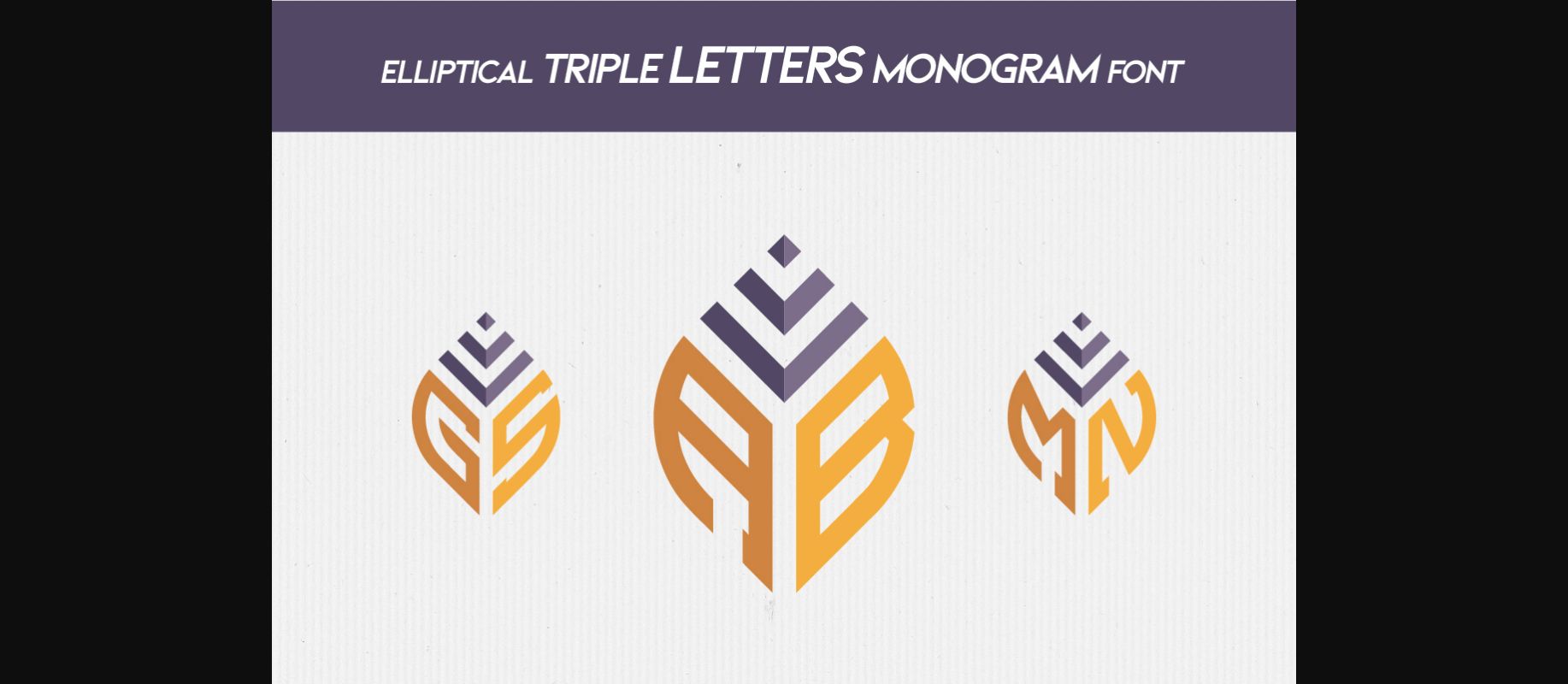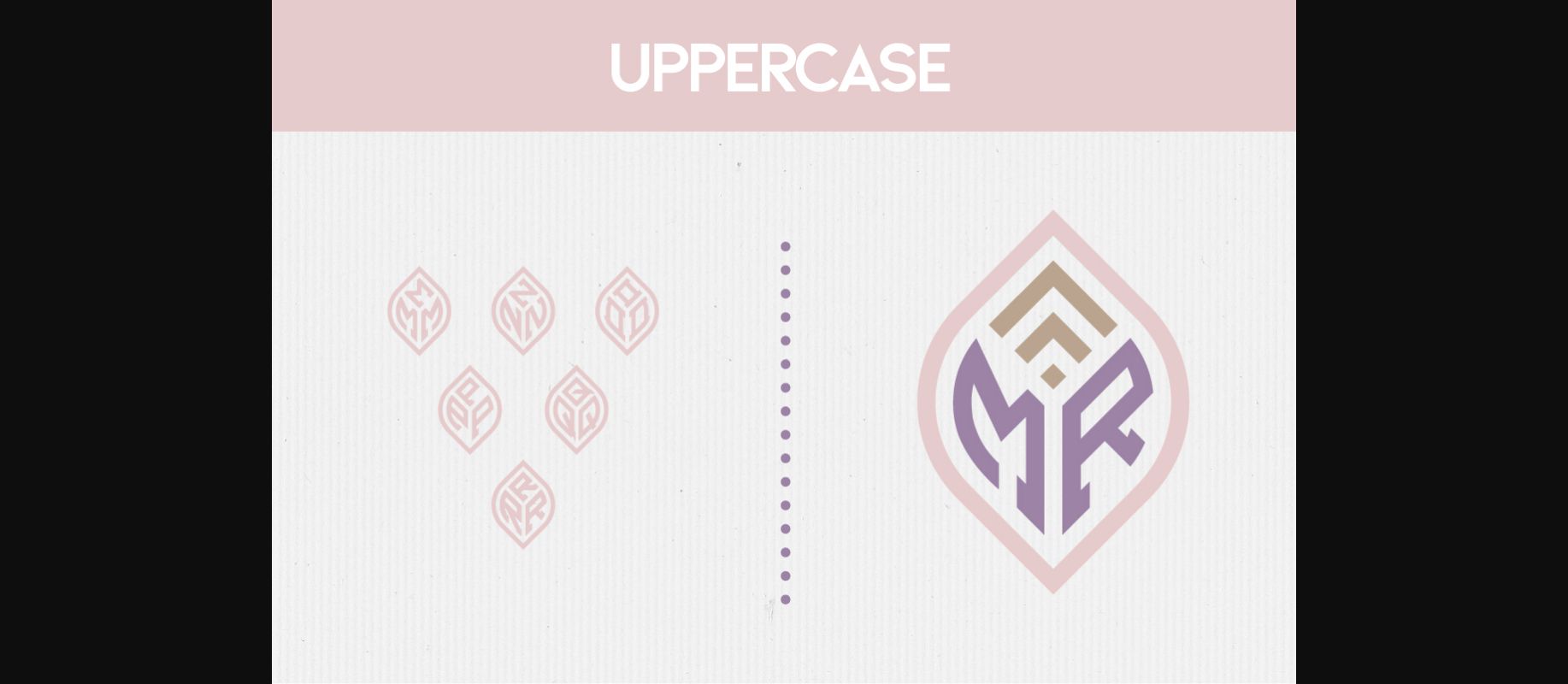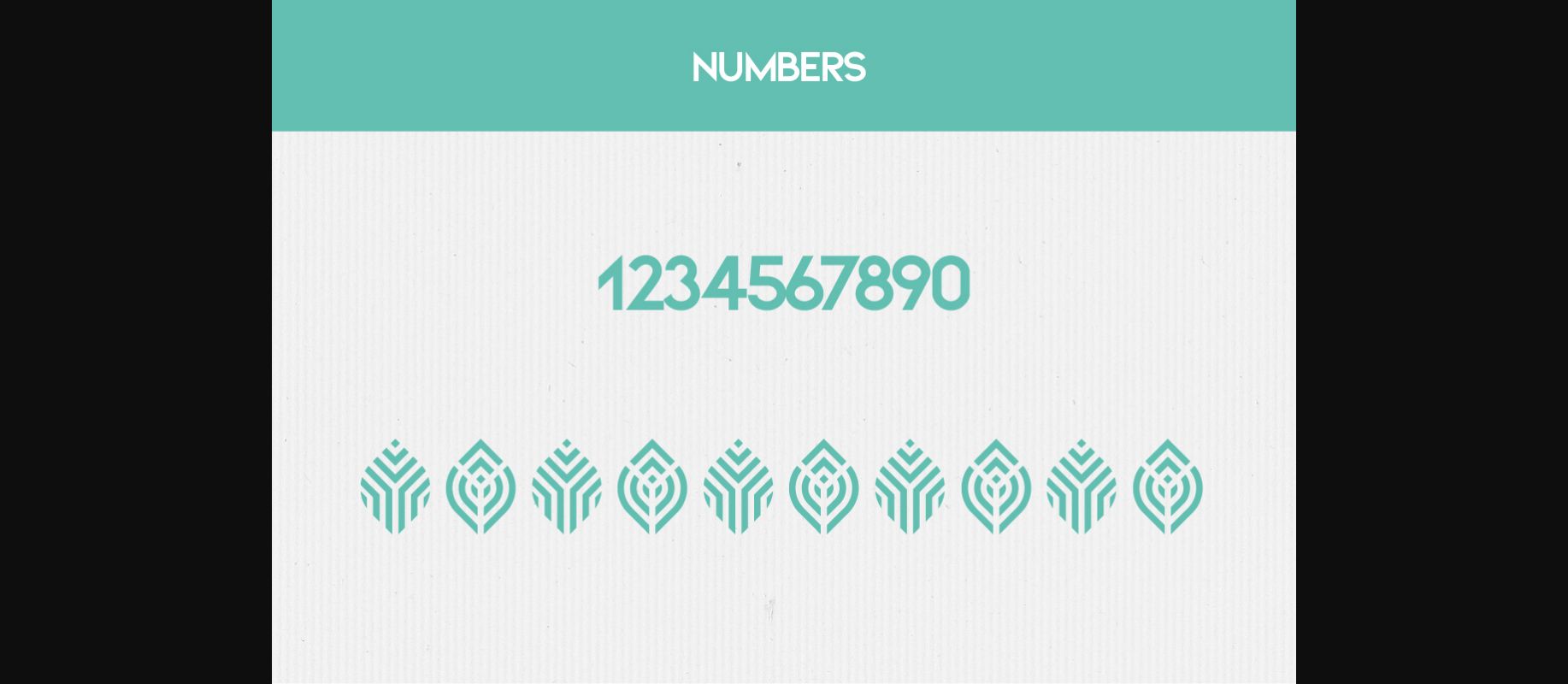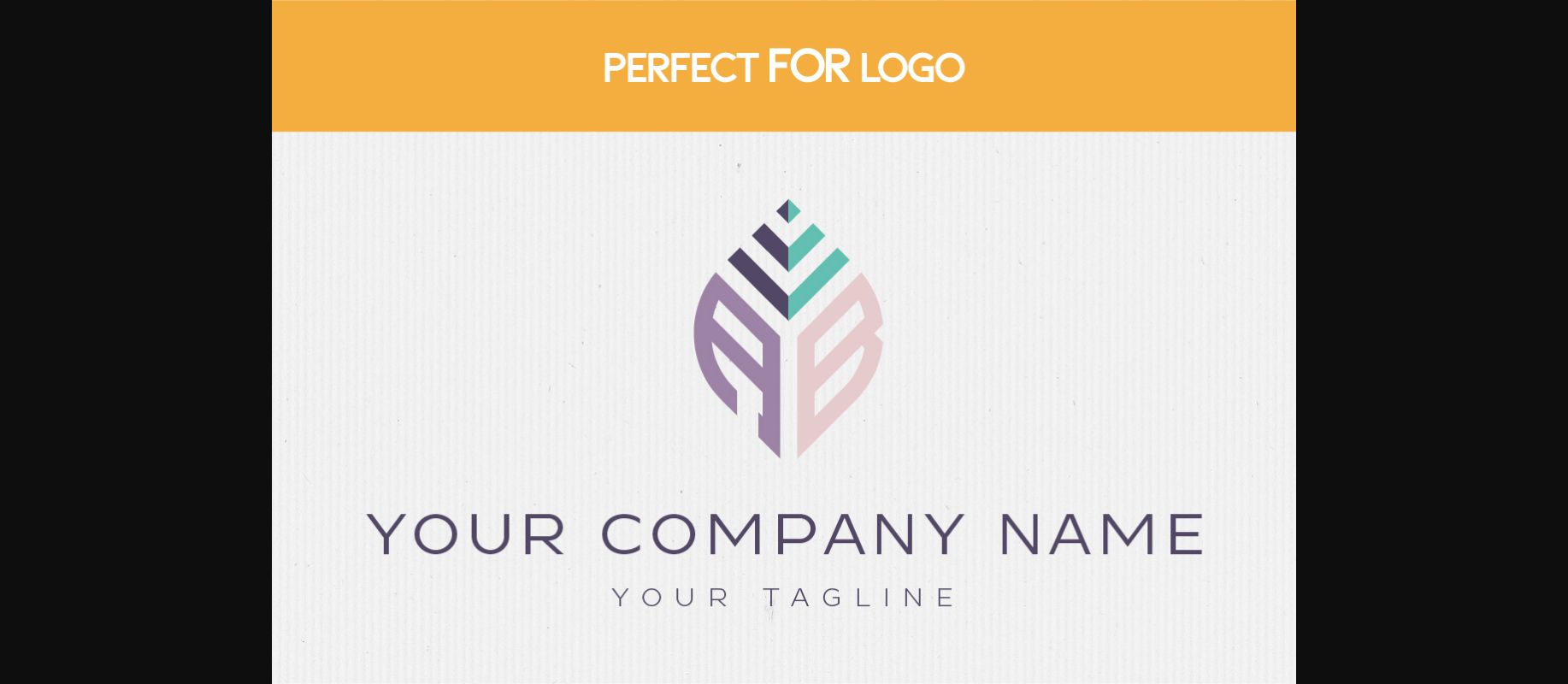
Elliptical Triple Letters Monogram Font
About Elliptical Triple Letters Monogram Font
Elliptical Triple Letters Monogram is a sophisticated decorative font, consisting of three letters combined in an elliptical form. Expertly designed to make your creation look out of this world, this font will look gorgeous on a variety of ideas.
This font is ideal for writing web designs, business cards, or pretty much anything else that requires a unique touch.